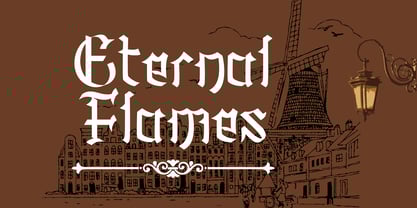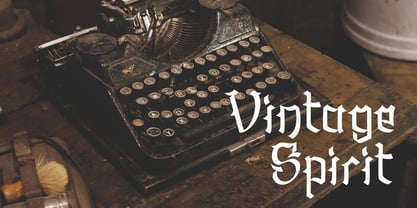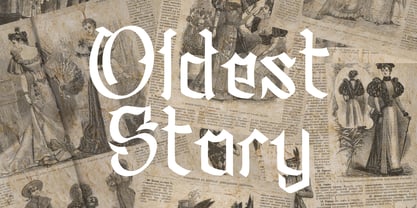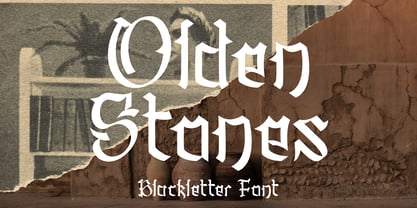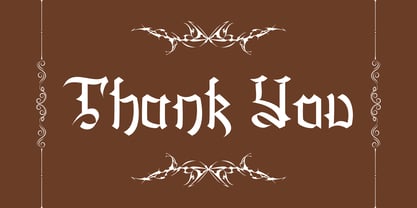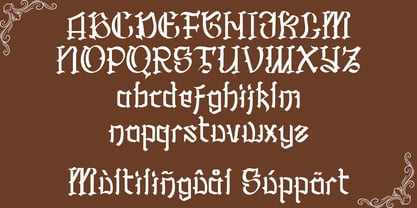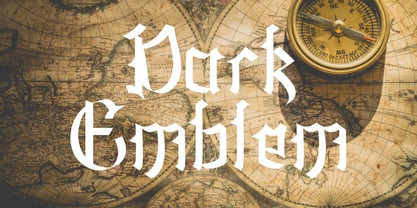
Olden Stones
by Letterafandi Studio
The Olden Stones Font Family was designed by Ahmad Afandi and published by Letterafandi Studio. Olden Stones contains 2 styles and family package options. More about this family
Olden Stones is a Blackletter font, characterized by its sharp angular strokes, dramatic contrast, and ornamental serifs. It evokes a classic medieval aesthetic, often associated with historical manuscripts, ancient architecture, and vintage craftsmanship. Its bold and intricate letterforms make it ideal for thematic designs that seek a sense of antiquity, heritage, and timeless strength.